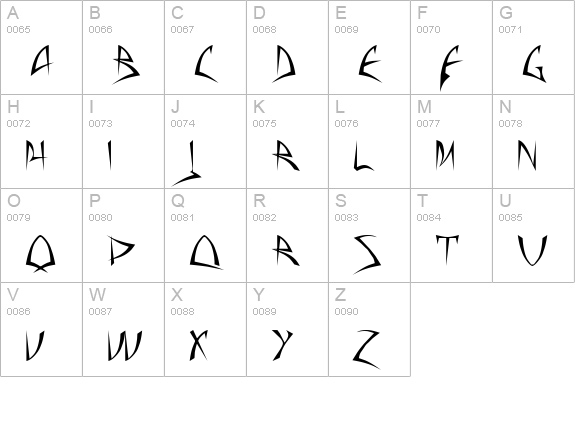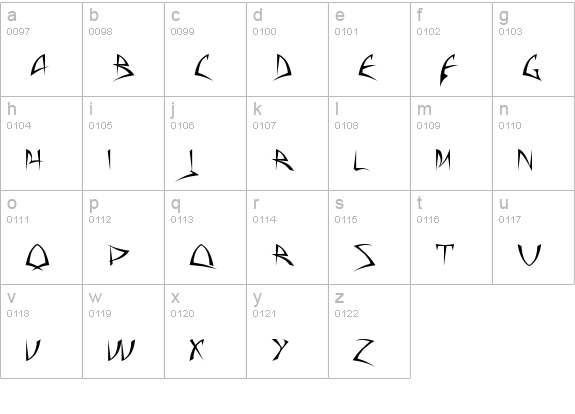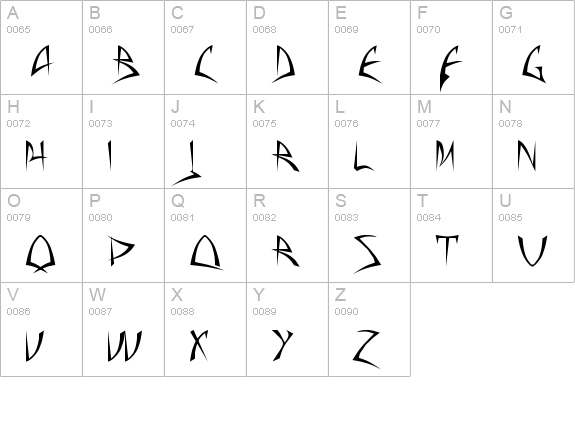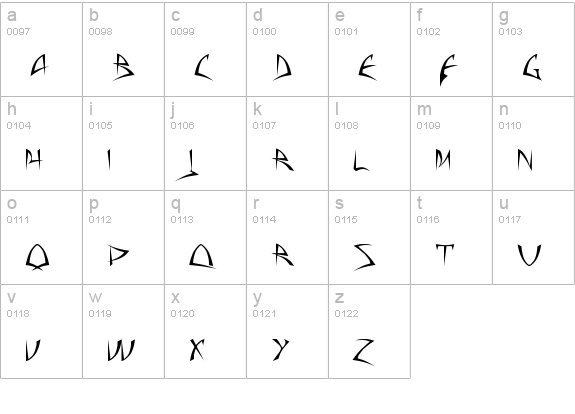
Baphometâ„¢ Font Details
Introducing the captivating Baphomet™ font, a mesmerizing typeface that exudes a perfect balance of elegance and edginess. Designed to make a bold statement, Baphomet™ is ideal for adding a touch of sophistication to any project. With its intricate details and unique design elements, this font is sure to catch the eye and leave a lasting impression. Best of all, Baphomet™ is available for free download at FontsMarket.com, making it easily accessible for designers and creatives looking to elevate their work with a touch of style. Whether you're working on a branding project, advertising campaign, or simply want to add a touch of flair to your designs, Baphomet™ is the perfect choice. Download it today and let your creativity shine with this striking and versatile font.